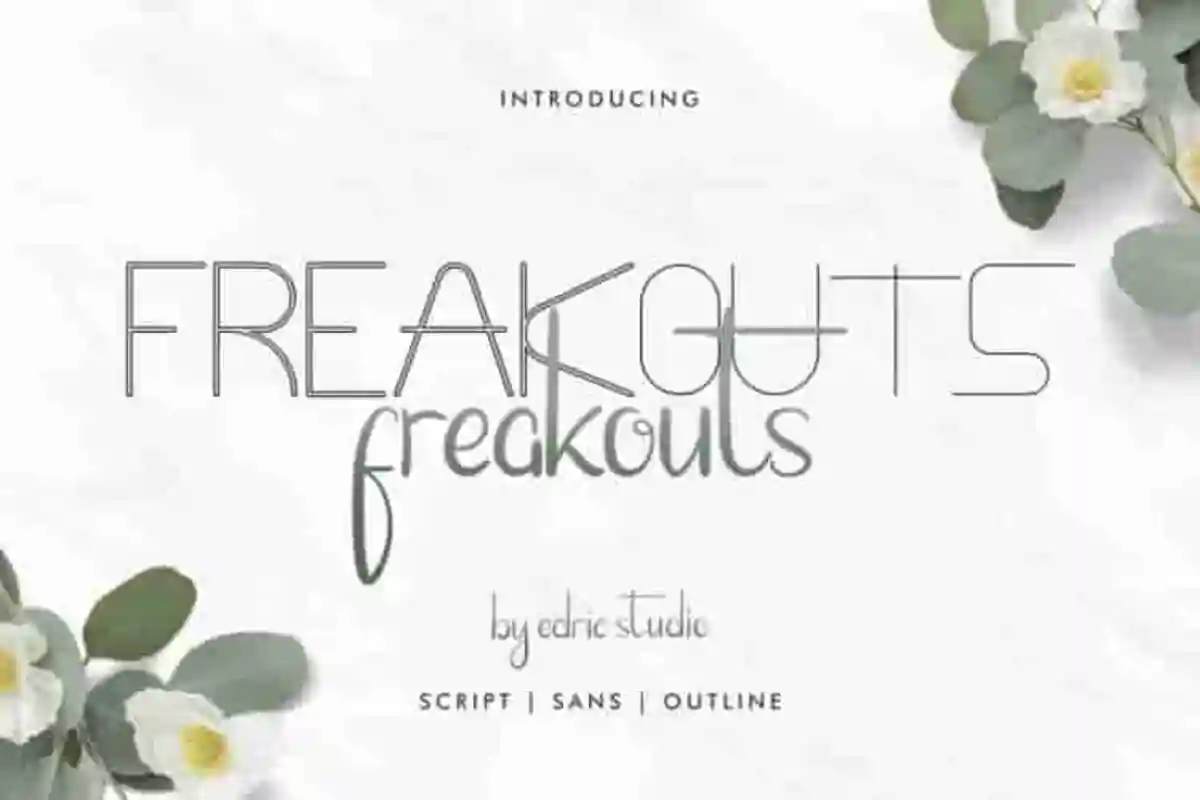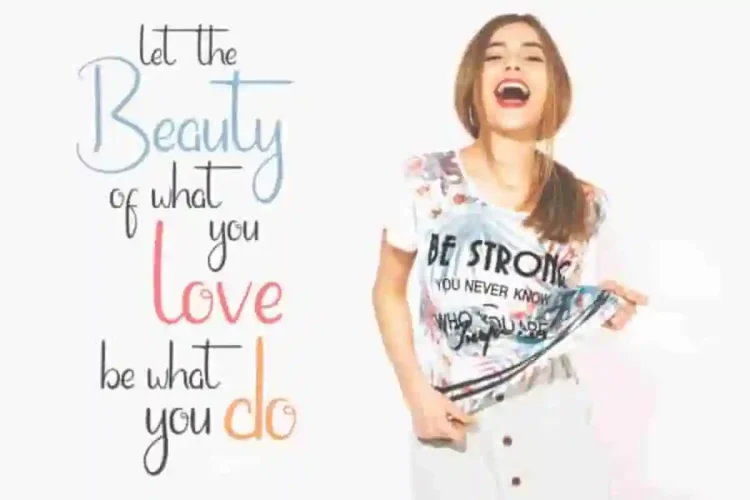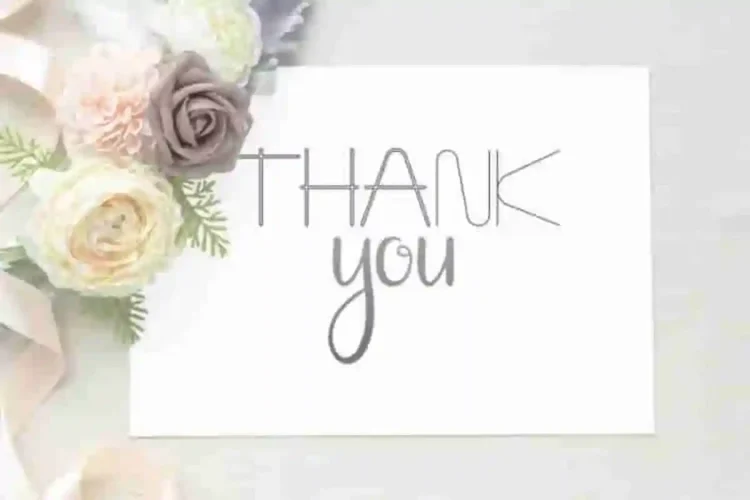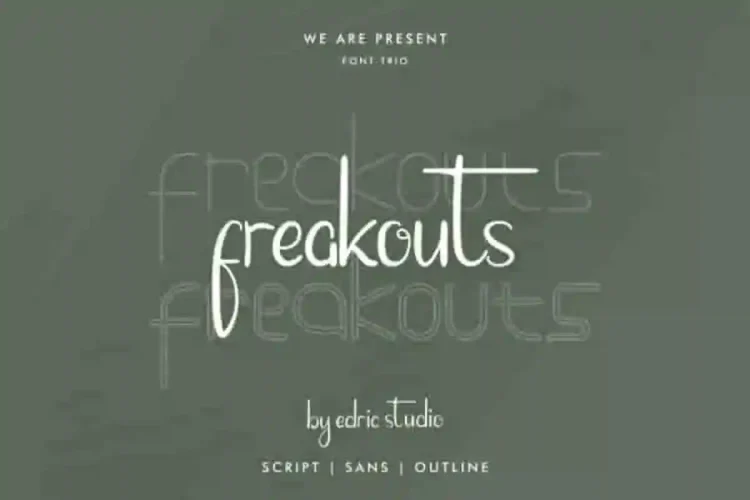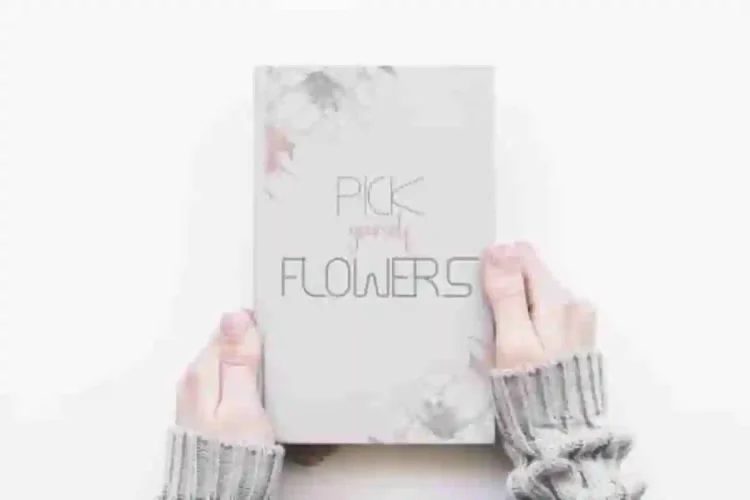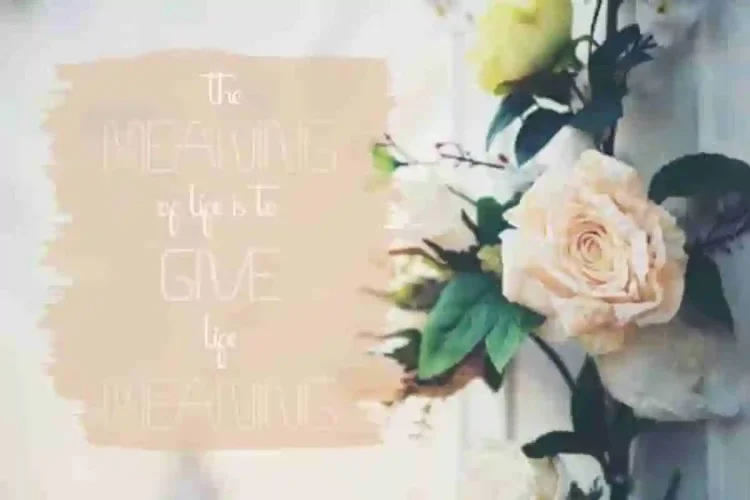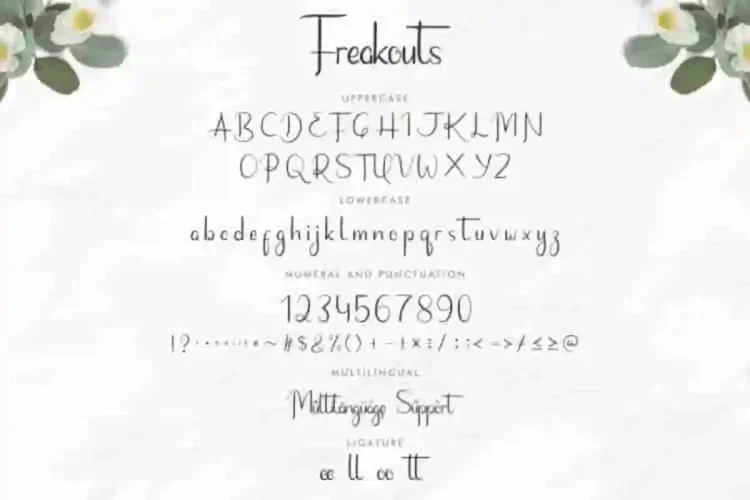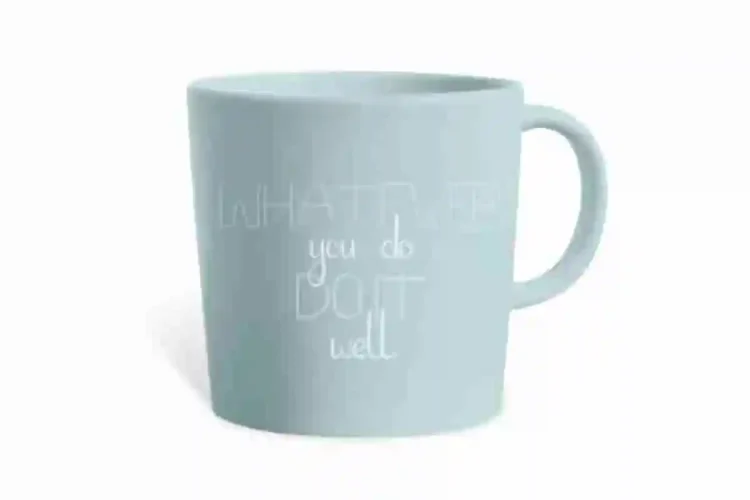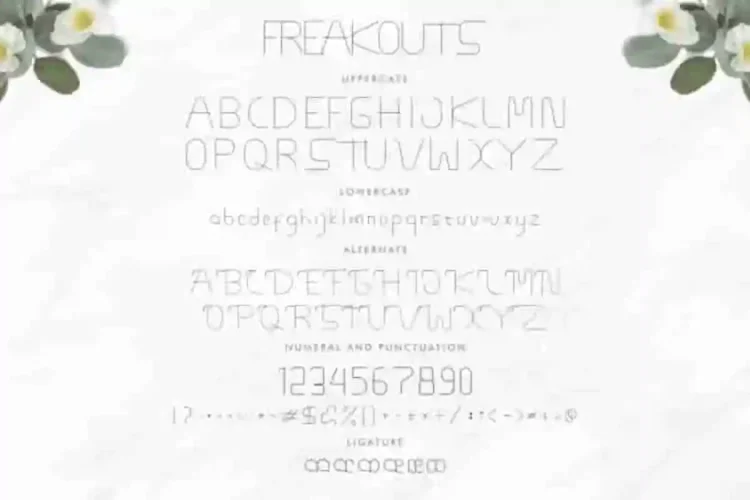
Freakouts Modern Script Font Duo
Freakouts Modern Script Font Duo is a font family with three different unique styles: handwriting, sans and outline. Handcrafted font family from our Studio in Indonesia. The designers of these fonts are Yasri, Suci and Ali. Freakouts Font comes with two different styles : Sans Display and Handwriting script font. It has a stunning characters set, perfectly managed with well spaced and kerning.
Freakouts Modern Script Font Duo will be great for any projects  including : branding and logo (with extended license), stationery, business card, signage, flyer, brochure etc. Almost all industries will be match for this typeface: wedding, events, real estate, architect, law firm, florist, gardening, makeup artist, travel, hotel, musician etc.